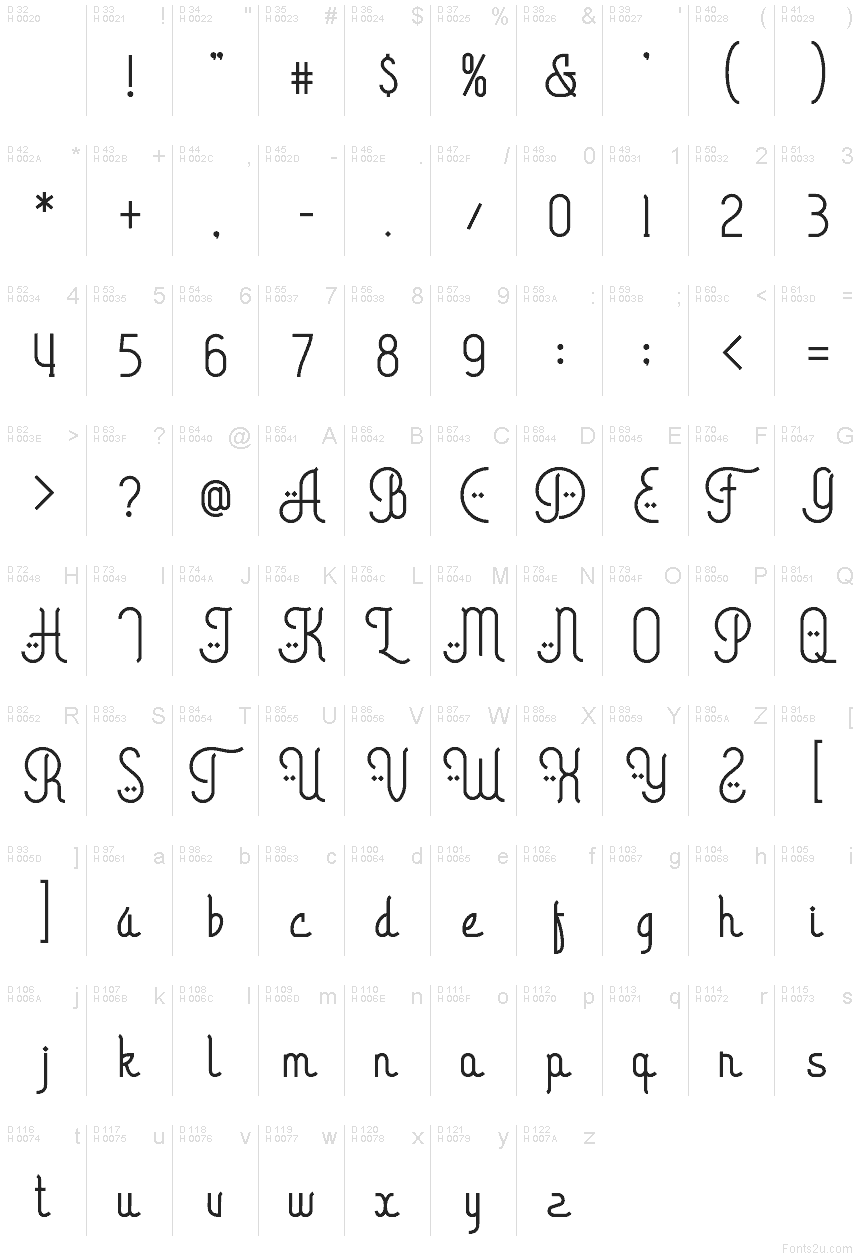
Arabic Calligraphy Regular
Arabic Calligraphy font by Blankids is a free calligraphic display font. Built around flowing, monoline strokes and crescent-like curves, it channels the elegance of Arabic penwork while keeping Latin readability intact. Slim lines, gentle loops, and ornamental dots create a soft, inky rhythm that feels handcrafted without getting fussy.
This free font shines on restaurant menus, event posters, boutique packaging, travel brochures, brand marks, and book covers that need cultural warmth with clarity. The steady stroke weight and roomy counters hold up at medium sizes, while the distinctive terminals add character in headlines. Using Arabic Calligraphy with a clean geometric sans is a simple pairing that keeps layouts balanced and contemporary.